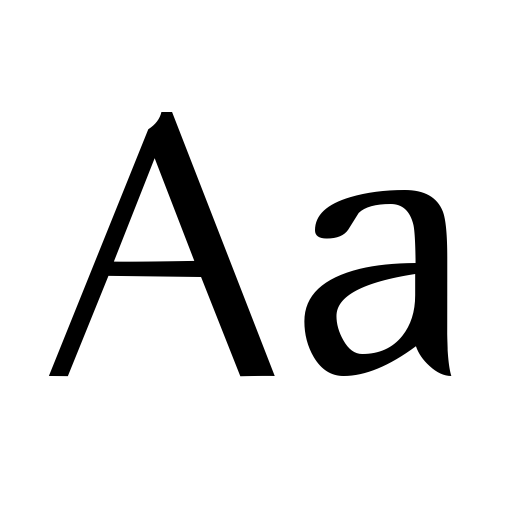
Bordini is a distinctive serif font with a refined, slightly quirky character, featuring moderate stroke contrast and gently bracketed serifs that give it a friendly yet elegant feel. Its unique letterforms, including single-story 'g' and delicate curves, make it well-suited for creative editorial, branding, and display uses where a blend of sophistication and approachability is desired. This font works great for headlines and logos that want to convey personality without sacrificing readability.
Bordini (Unregistered) Font
About Bordini (Unregistered) Font